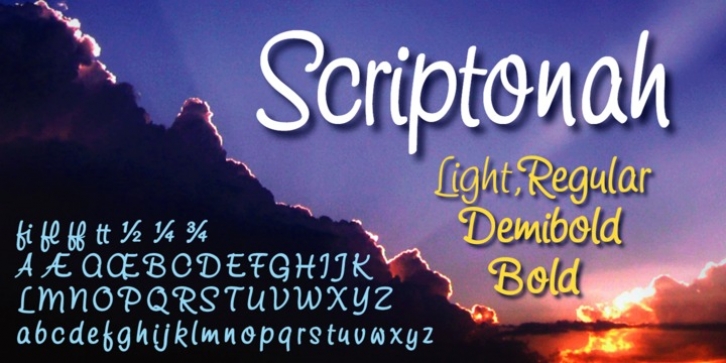
John Nahmias
Jonahfonts
A script font family which include 4 variations, Light, Regular, DemiBold and Bold.
An easily-legible font useful for notes, invitations and announcements, also for the package designer